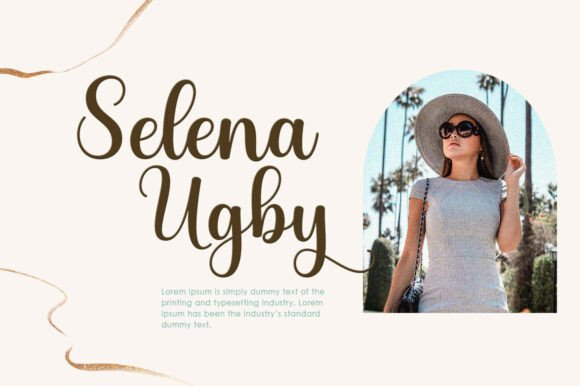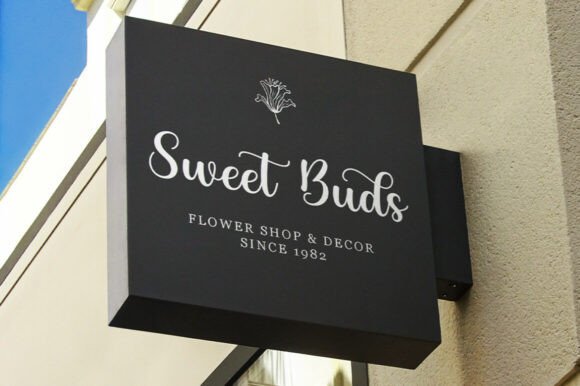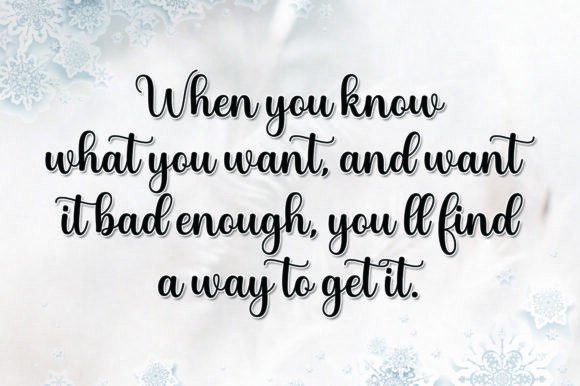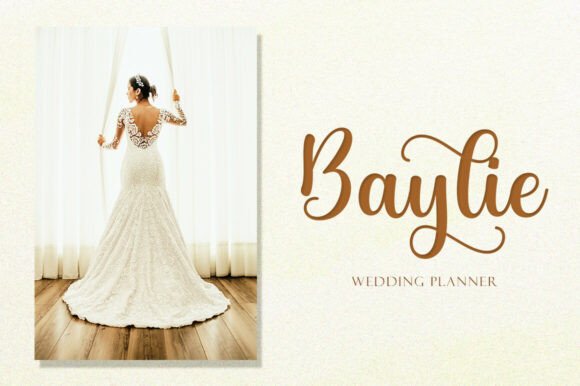
Introduction to Hey Angela Font Font
Fonts play a crucial role in design, and the Hey Angela Font font is a typeface that brings both character and versatility to any project. Whether you’re working on a branding project, a website, or a print design, the Hey Angela Font font offers a unique style that can elevate your work.
Hey Angelaο»Ώ is a romantic and sweet calligraphy typeface with characters that dance along the baseline.
It has a casual and yet elegant touch It can be used for various purposes such as logos, wedding invitations, headings, t-shirts, letterhead, signage, lables, news, posters, badges etc.
Key Features of Hey Angela Font Font
Why Choose Hey Angela Font Font?
The Hey Angela Font font is more than just a typeface β it’s a design tool that helps you communicate your message with style and clarity. Its unique character set and versatile design make it suitable for a wide range of applications, from elegant invitations to bold headlines.
With its carefully crafted letterforms and balanced proportions, the Hey Angela Font font ensures readability and visual appeal across all mediums.
What makes Hey Angela Font font special?
The Hey Angela Font font stands out with its unique design, exceptional readability, and versatility across various design applications.